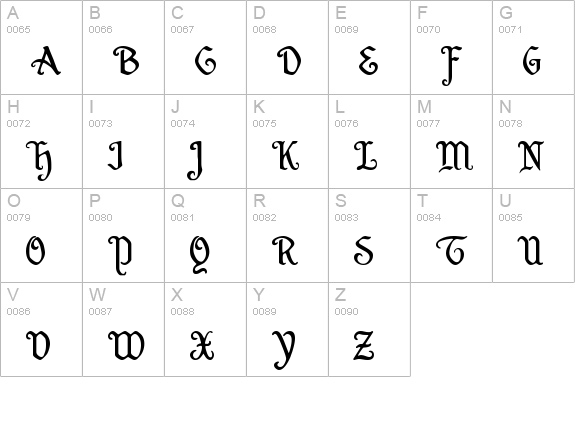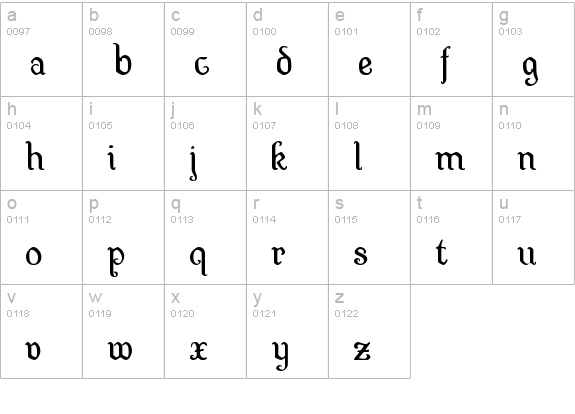
Wellsley Font Details
Introducing Wellsley, a beautifully crafted font that exudes elegance and sophistication. With its refined curves and graceful strokes, Wellsley is the perfect choice for adding a touch of sophistication to any project. This versatile font is ideal for a wide range of design purposes, from branding and logos to invitations and packaging. Its timeless appeal and classic aesthetic make it a standout choice for both print and digital applications. One of the best features of Wellsley is that it is completely free to use. Yes, you read that right! This stunning font is freely available to download at FontsMarket.com. Whether you are a professional designer or a casual user, you can enjoy the benefits of this exquisite font without any cost. Wellsley offers a comprehensive character set, including uppercase and lowercase letters, numbers, punctuation marks, and multilingual support. This ensures that you have all the tools you need to create captivating designs in any language. The clean and legible nature of Wellsley makes it highly readable, even at smaller sizes. It effortlessly captures attention and adds a touch of sophistication to any design project. Whether you are designing a logo for a luxury brand or creating elegant wedding invitations, Wellsley is the perfect choice to make a lasting impression. So why wait? Download Wellsley today from FontsMarket.com and unlock the power of this incredible font. With its timeless elegance and versatile nature, Wellsley is sure to become a staple in your font collection. Start creating stunning designs with this free font and take your projects to new heights of sophistication.